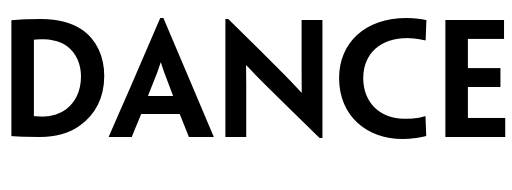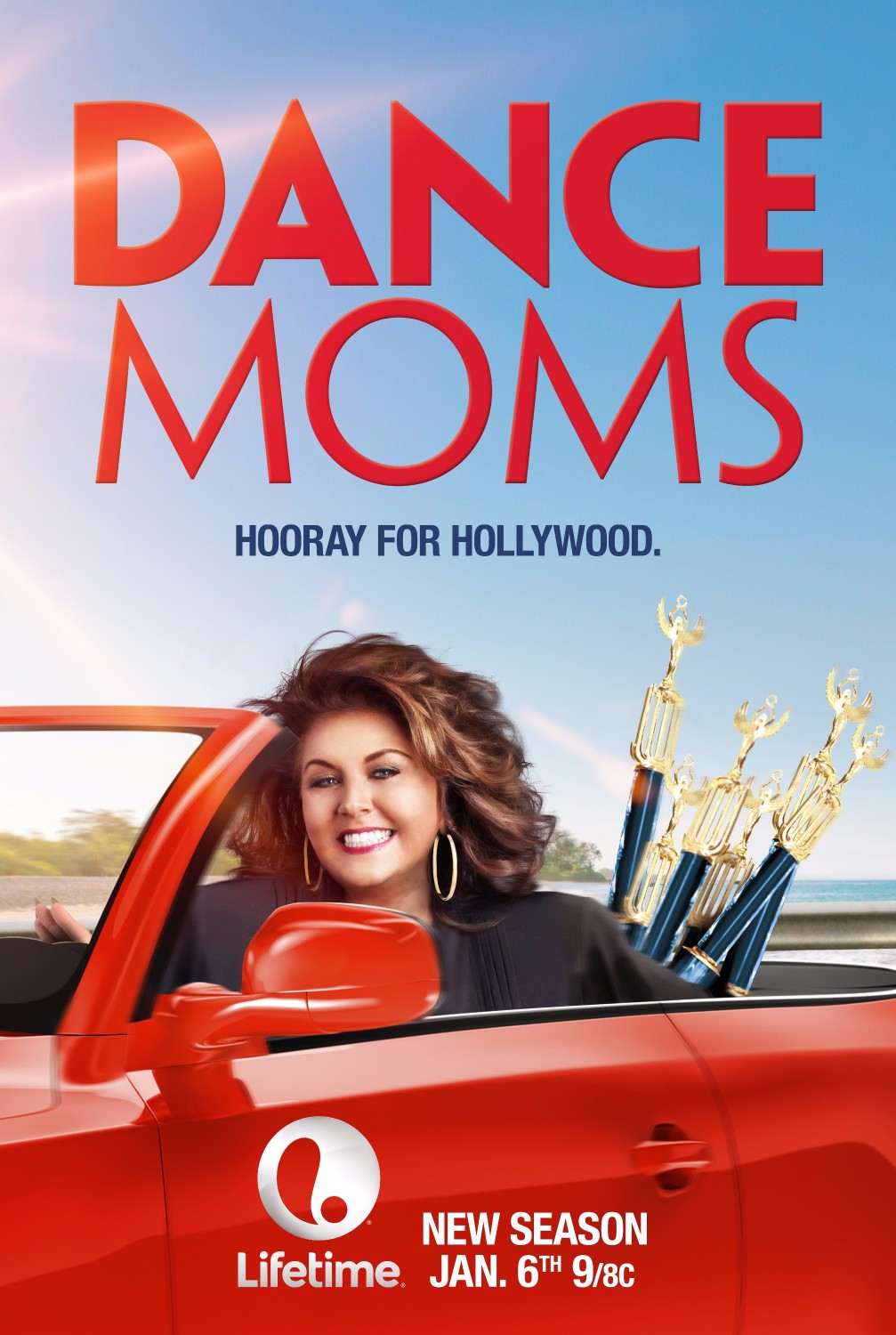
Dance Moms Font
Fonts in UseDance Moms is an American reality TV series that aired on Lifetime from 2011 to 2019. The show followed a group of young dancers and their mothers, as they trained and competed in the world of competitive dance under the guidance of a demanding coach, Abby Lee Miller.
The TV show title "Dance Moms" uses the all-capital Penumbra Sans font, designed by Lance Hidy, with "Moms" in Penumbra Sans Light and "Dance" in Penumbra Sans Semi Bold. The font blends contemporary and traditional qualities and evolved from Hidy's monoline poster lettering since the 1970s.